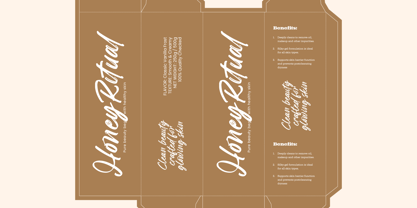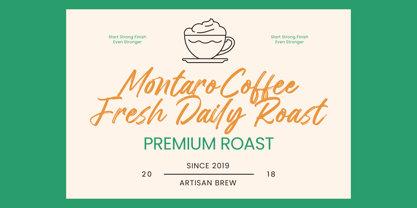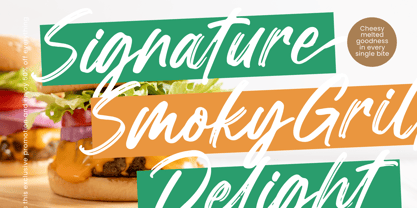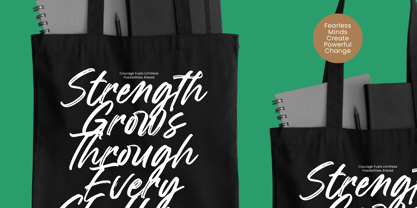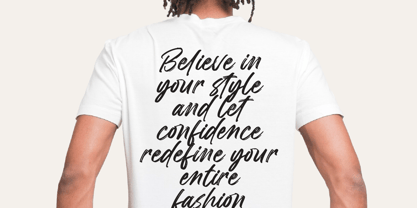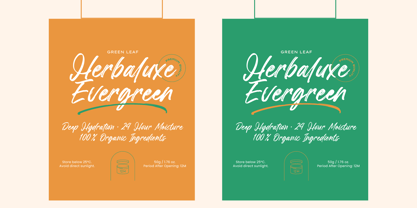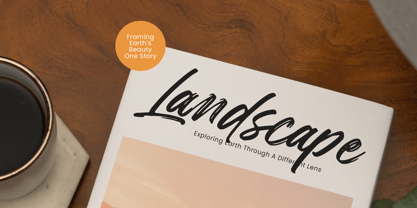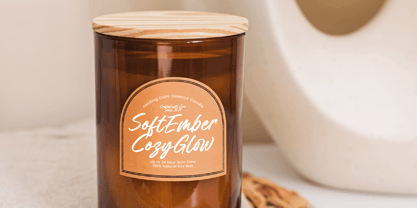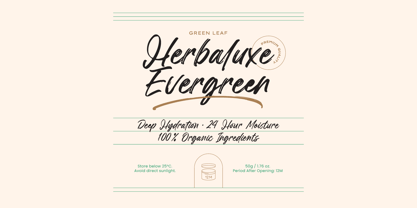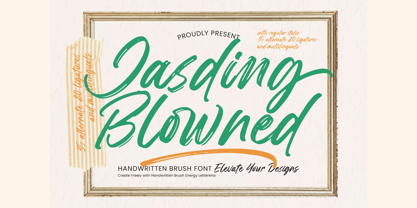
Jasding Blowned
The Jasding Blowned Font Family was designed by Heru Utama Putra and published by Letterena Studios. Jasding Blowned contains 2 styles and family package options. More about this family
Jasding Blowned - Handwritten Brush Font Jasding Blouned is a handwritten brush font crafted to bring natural movement and expressive energy into your designs. Built with dynamic brush strokes and smooth flowing curves, this typeface delivers an authentic handcrafted feel while maintaining strong readability. It includes regular and italic styles, along with 35 alternates, 80 ligatures, and full multilingual support, giving you extensive creative flexibility for unique and seamless letter combinations. Perfect for branding, logos, packaging, posters, social media graphics, invitations, and editorial layouts, Jasding Blouned adds warmth, personality, and bold artistic character to both print and digital projects. Designed for creators who want freedom and impact, this brush font elevates every composition with confident, organic style.